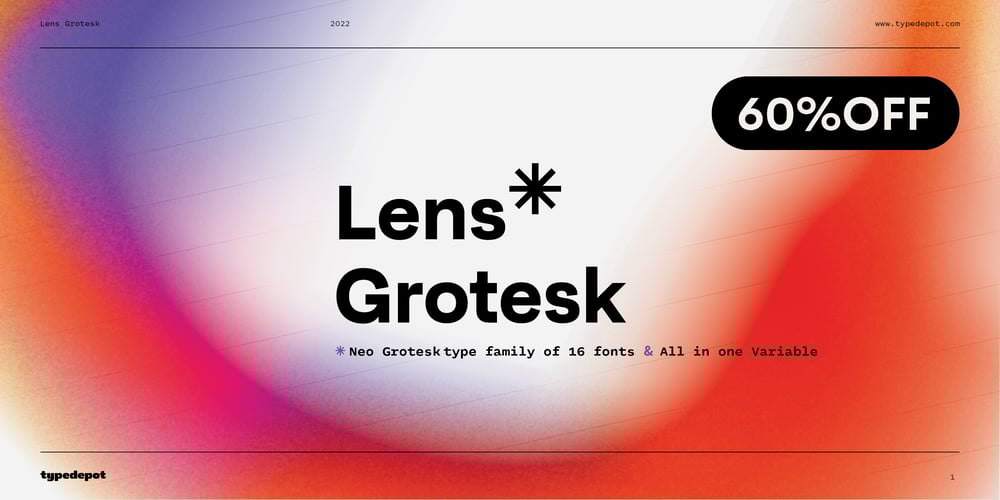
Lens Grotesk Font Family was designed by Alexander Nedelev and published by Typedepot. Lens Grotesk contains 17 styles and family package options. Lens Grotesk is a Neo-grotesque type family of 16 fonts born as a result of a very conscious research in the field of the neutral Swiss aesthetic. There’s a reason for all the prominent examples of this design like Helvetica and Univers to be used on a daily basis for more than 70 years and it’s a simple one – they just work.The closed terminals, the low contrast, uniform widths and proportions makes the Neo-grotesques feel just right. Although very often branded as stiff, the neutral Neo grotesques are here to stay and Lens Grotesk is our own reading of the popular style.Lens Grotesk takes the Neo-grotesk model one step further adding a pinch of Geometric sans-serif to the mix thus creating a way more modern and contemporary looking design. Characterized with more generous oval proportions and slightly more open terminals, Lens Grotesk keeps the modulation and rhythm needed for a slightly longer texts while visibly keeping everything in order. Zooming in you’ll find traces of the Geometric aesthetic – the robust almost right angled approach of the arches and tails (look t, f, j, y) and the way more circular rounded shapes.Like all our fonts, Lens Grotesk is equipped with a range of OpenType features, stylistic alternatives and of course Cyrillic support. It comes in a pack of 16 fonts with 8 styles and their matching italics or one variable font file available with all full family purchases.Live Tester | Download Demo Fonts | Subscribe